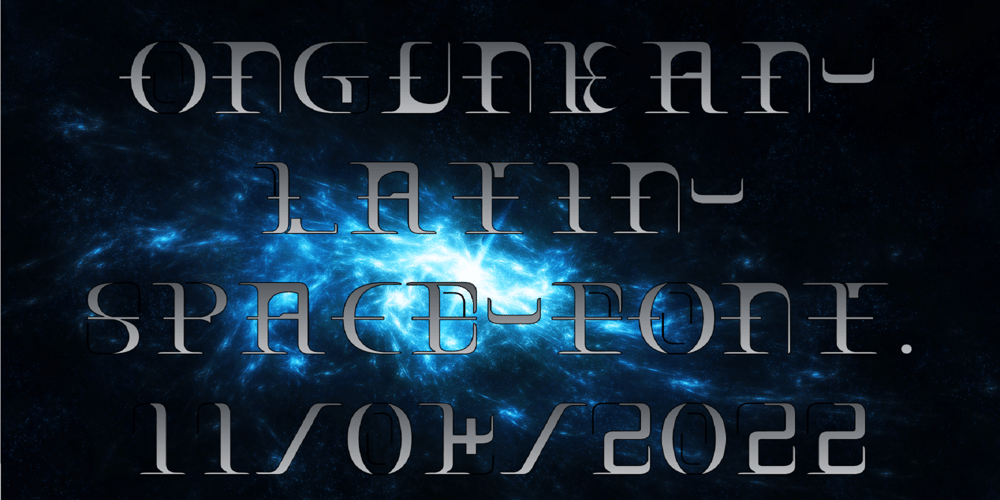
Ongunkan Latin Space Font Family was designed by Osman Nuri ALKAN and published by Runic World Tamgacı. Ongunkan Latin Space contains 1 styles and family package options. The product of 3 weeks of work. It was a very nice style, it became a font that plays with the perception of the brain. Use it in beautiful works.